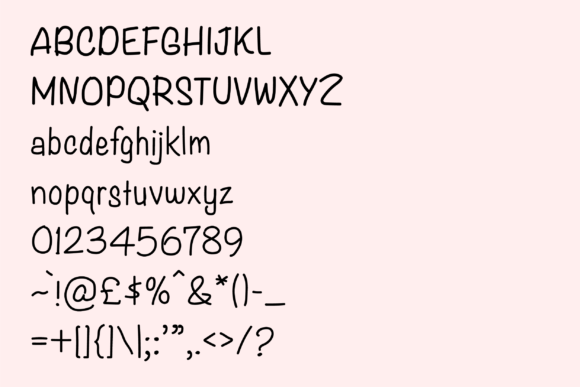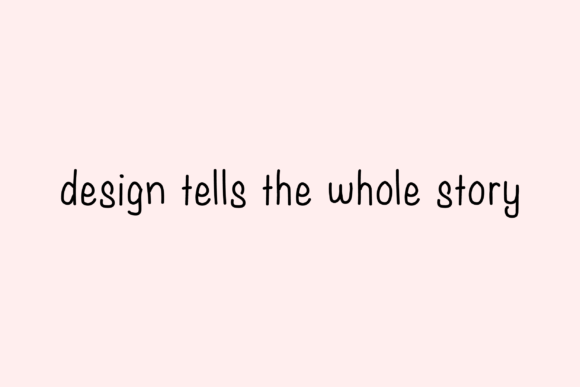
The Breezy Truth About Breezo Font
I’ll never forget the time I was working on a fun project for a client’s summer-themed party invitation. I had all the design elements ready – the colors, the graphics, the overall vibe – but I was stuck on one thing: the font. I wanted something that would capture the carefree essence of summer, but everything I tried felt too formal or too bland. That’s when I stumbled upon Breezo Font, and let me tell you, it was like a breath of fresh air! 🌞
First Impressions: A Love Affair with Breezo
Breezo Font is a playful and expressive handwritten font that instantly brought a fresh and breezy vibe to my project. Its rounded characters and casual style made it perfect for adding a touch of personality to the invitation. I knew right then and there that I had to share this gem with fellow designers, crafters, and creative hobbyists.
What I Love About Breezo Font ✨
- ✅ Playful and Expressive: Breezo Font has a unique, hand-crafted feel that adds a personal touch to any project.
- ✅ Versatile: Its casual style makes it suitable for a wide range of applications, from posters and logos to invitations and more.
- ✅ Easy to Read: Despite its playful nature, Breezo Font remains clear and legible, even at smaller sizes.
- ✅ OpenType Features: Breezo Font comes with a range of OpenType features, including stylistic alternates and glyphs, which allow for even more customization.
While Breezo Font is incredibly versatile, there are a few things to keep in mind. For instance, its casual style may not be the best fit for very formal projects or those requiring a high level of sophistication. Additionally, some users may find that the font’s playfulness can be overwhelming if not used thoughtfully.
- ⚠️ Legibility at Small Sizes: While generally easy to read, Breezo Font can become a bit tricky to read at very small sizes (below 10pt). It’s best used at larger sizes where its playful nature can shine.
- ⚠️ Pairing with Other Fonts: Due to its distinctive style, Breezo Font can be a bit challenging to pair with other fonts. It’s essential to choose complementary fonts that won’t compete with Breezo’s playful vibe.
Exploring Alternatives: Similar Fonts to Breezo
If you’re looking for fonts with a similar vibe to Breezo, consider these alternatives:
- Pacifico: A beautiful, modern script font with a relaxed yet elegant feel. Ideal for designs that need a bit more sophistication.
- Great Vibes: A fun, handwritten font with a lively and adventurous personality. Great for projects that require a playful touch.
- Lobster: A classic, elegant script font that adds a touch of luxury to any project. Suitable for more formal designs.
- Carolyna Pro: A modern, yet elegant script font with a friendly feel. Perfect for designs that need a balance of playfulness and sophistication.
The Story Behind Breezo Font
Breezo Font was created with the intention of capturing the carefree, breezy vibe of a perfect summer day. Its designer, inspired by the fluidity and playfulness of handwriting, aimed to create a font that would bring a fresh perspective to creative projects. Through its rounded characters and casual style, Breezo Font embodies a sense of fun and approachability.